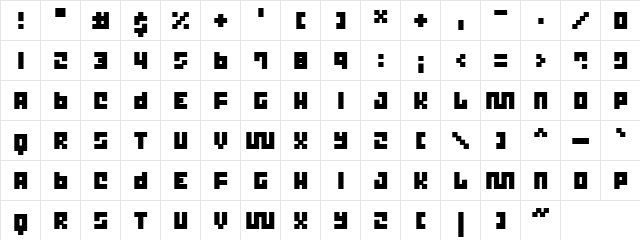
Trick Thik Regular
Design Context for Trick Thik Typeface
Trick Thik takes a measured approach to typography — its balanced proportions and neutral character make it a reliable workhorse for both digital and print work.